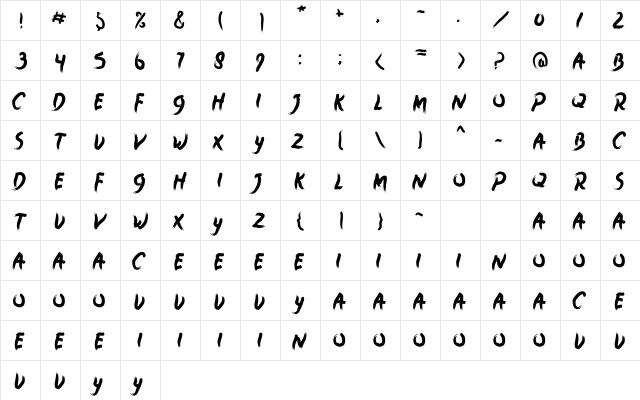
Crunch Regular
| Designer | Nur Edi Prayitno |
Design Context for Crunch Typeface
Crunch is a composed and adaptable typeface that performs quietly and consistently across a wide range of design contexts.